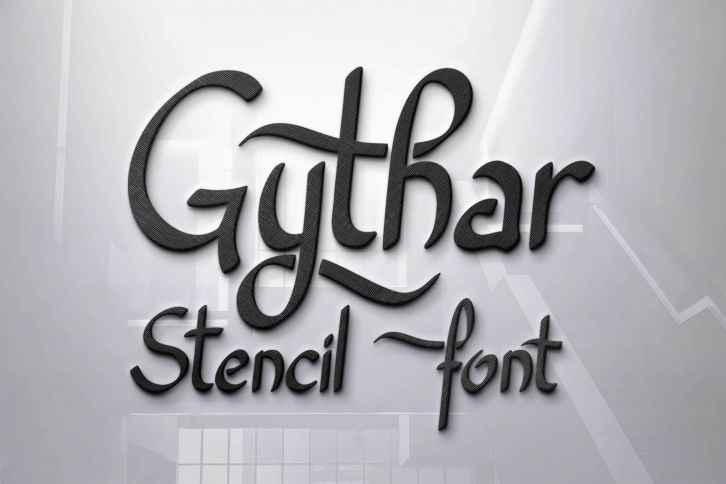
Gythar is a trendy and unique font with an authentic style. It was designed by Digital Typeface Studio and it's a great choice for creative people who need such a font. It was released on September 1, 2022 and the file size is 1.76 MB. Gythar will add an organic vibe to any design idea!